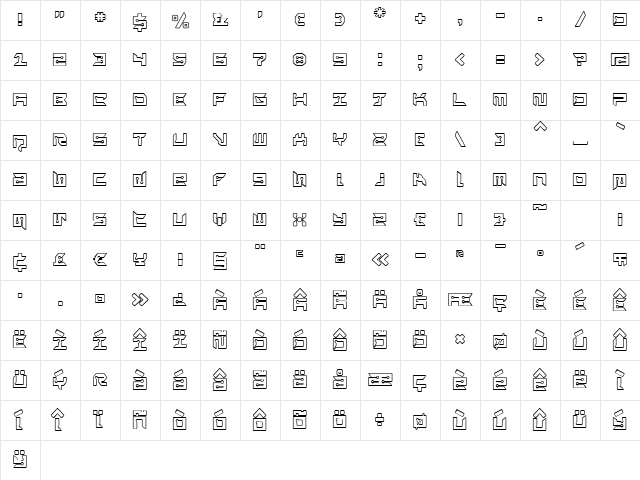
RayzorBlunt Outline Regular Free Font
RayzorBlunt Outline Regular
Design Context for RayzorBlunt Outline
RayzorBlunt Outline is built around its visual character rather than neutral utility - its distinctive forms are designed to make an impression at display sizes.
Font Pairing: Pair with a clean neutral sans-serif for body copy to let RayzorBlunt Outline's character lead without overwhelming the composition.
Pro Tip: Use RayzorBlunt Outline exclusively at display sizes - it was designed to be seen, not read at length. Let a neutral companion handle body copy.